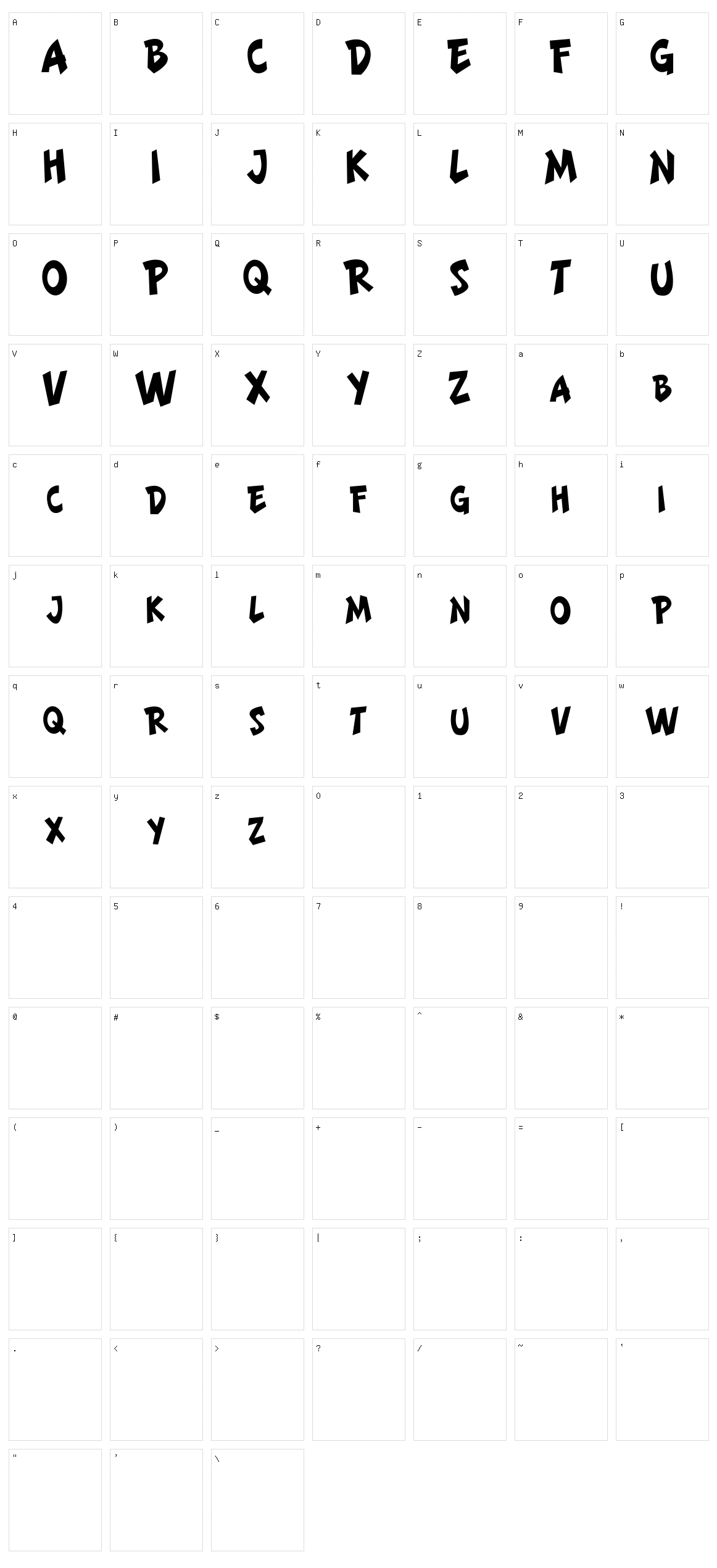
The free font Lion Teen is carefully designed by Fachranheit, showcasing a thoughtful balance of creativity and usability and falls under the Cartoon font style. When you download the ZIP file, it contains only 17.6 KB of font files, making it lightweight and quick to download. Please review the license details below to understand permitted usage and distribution rights. If license information is not available, we recommend using this font for personal projects only or contacting the author directly for commercial usage permissions.